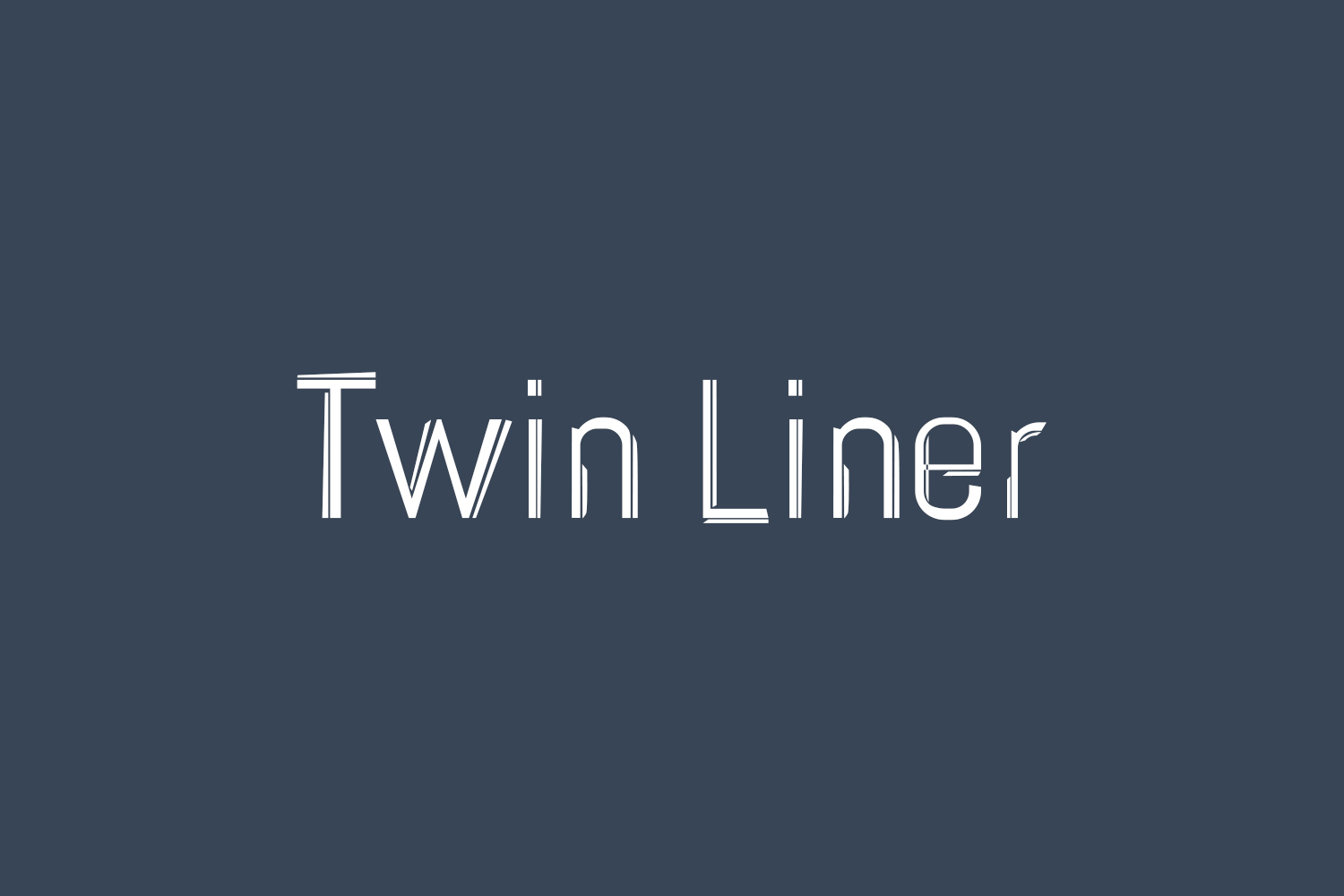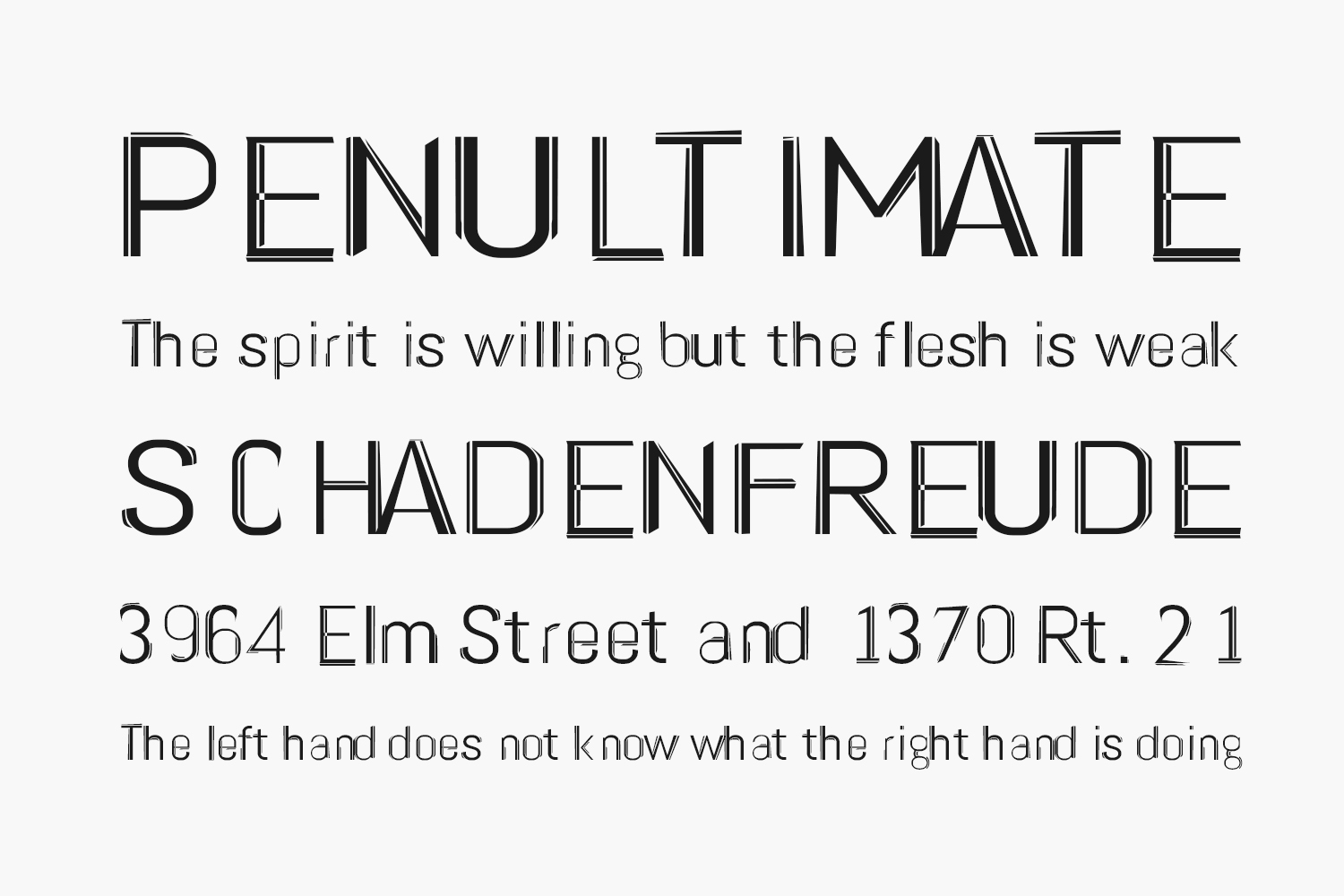
Twin Liner Free Font is a clean, modern, and easily understandable typeface that comes with sliced lines, various decorative variants, a good appearance, creative letterforms, and ornamental shapes. Twin Liner Free Font was designed by Boldfonts and is free for personal use only. Please purchase the full version for commercial use.